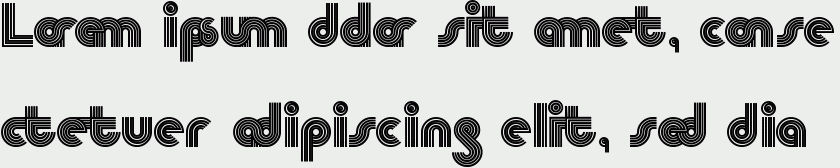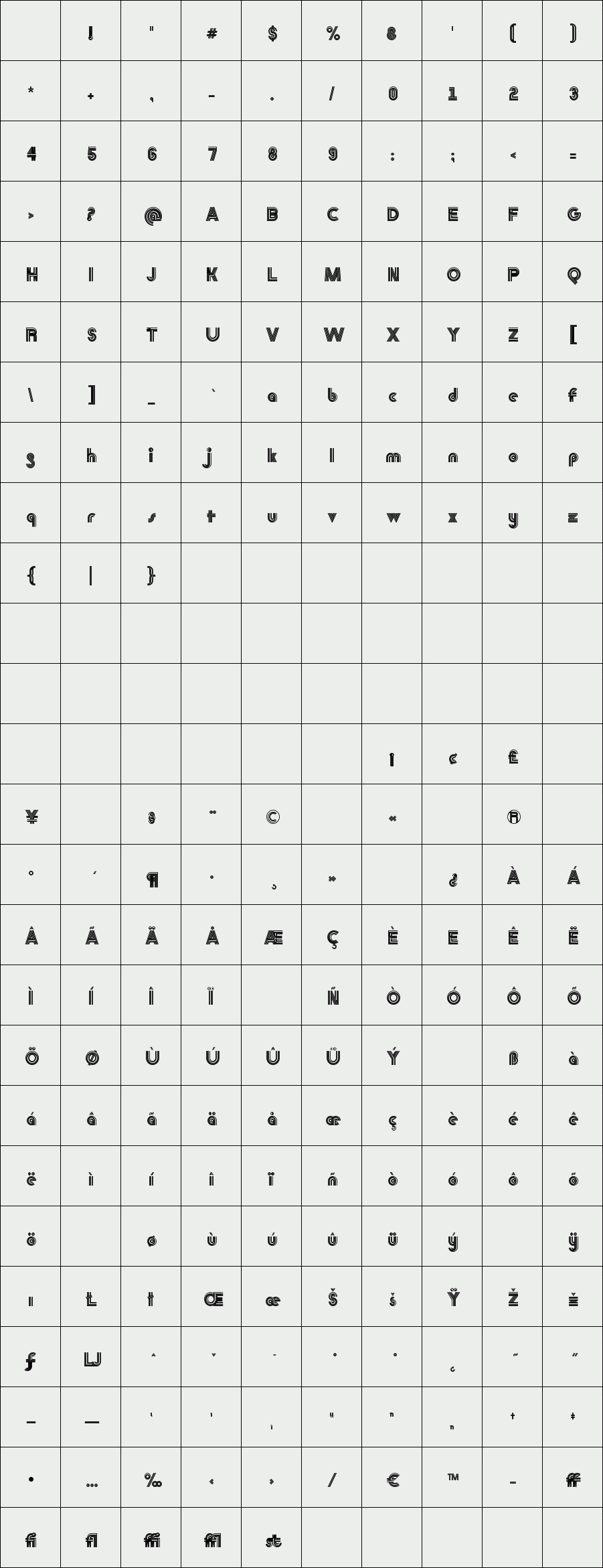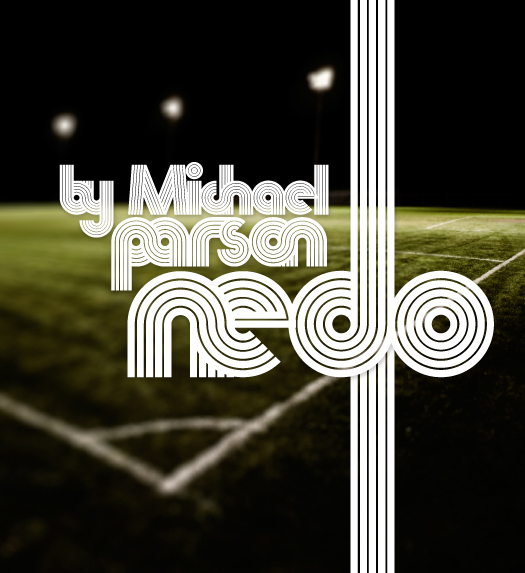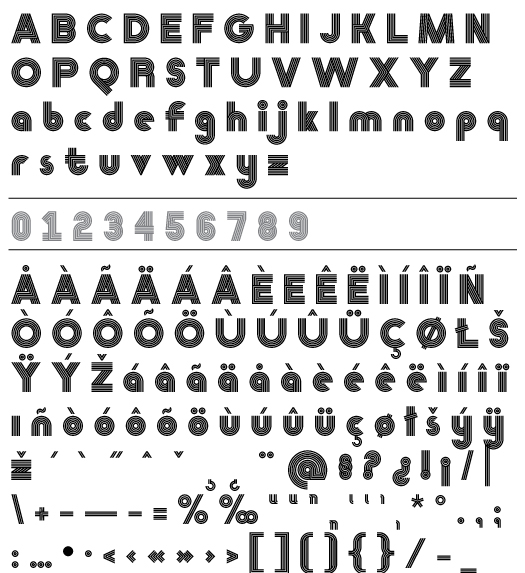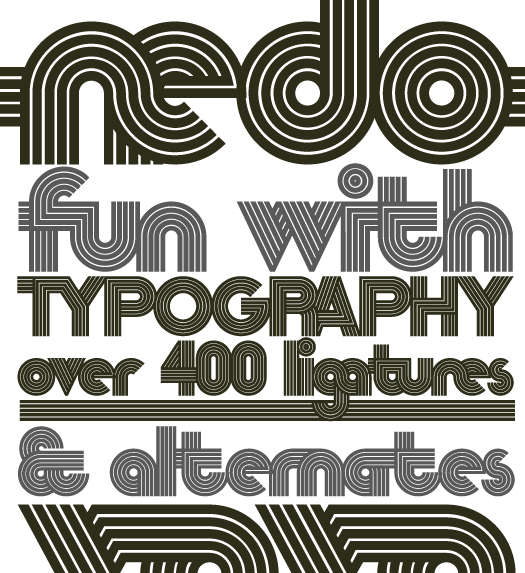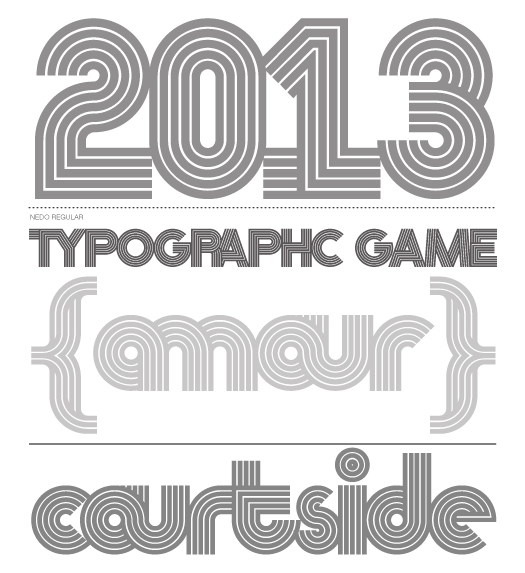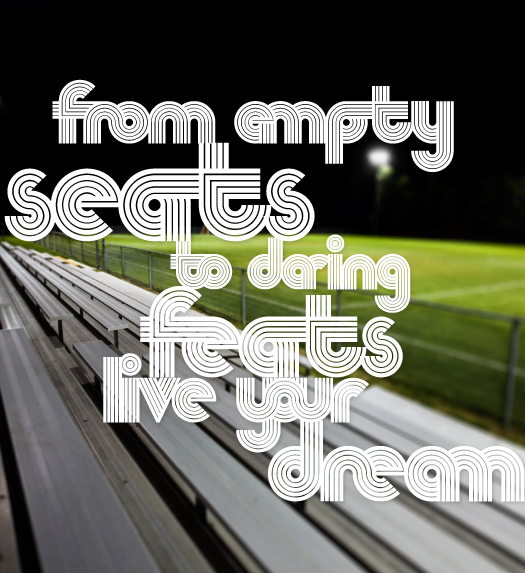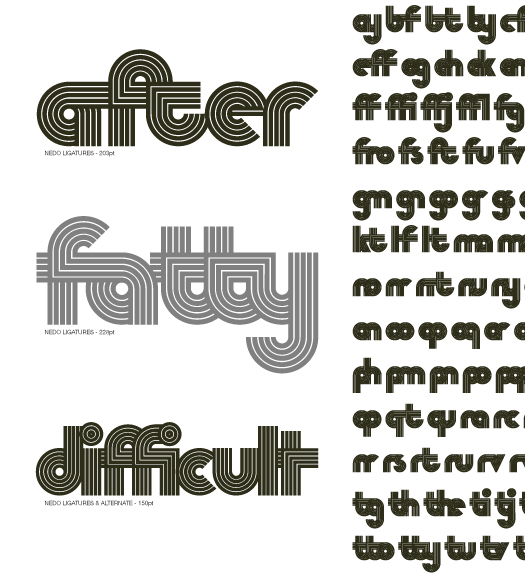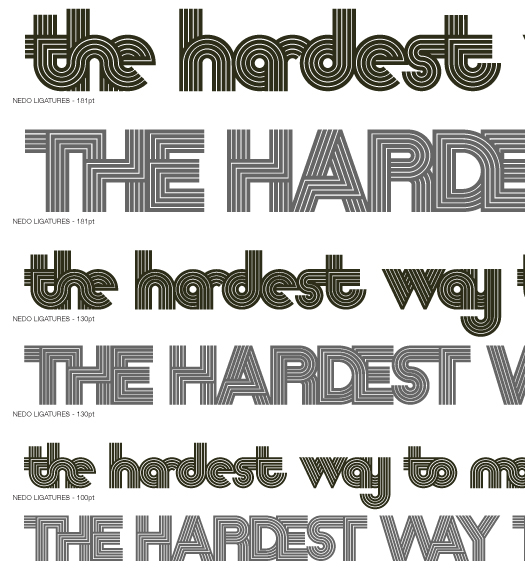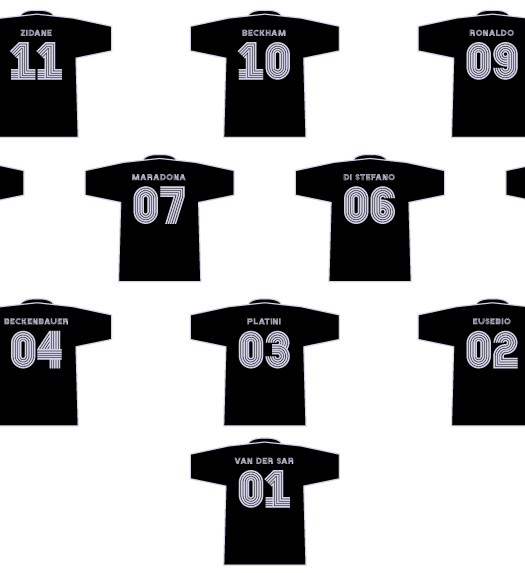
Nedo
/ Nedo Regular
A single weight display font based on a series of geometric lines that features a large set of ligatures and some alternate characters.